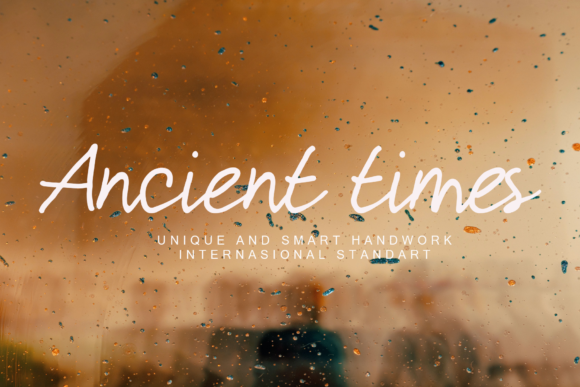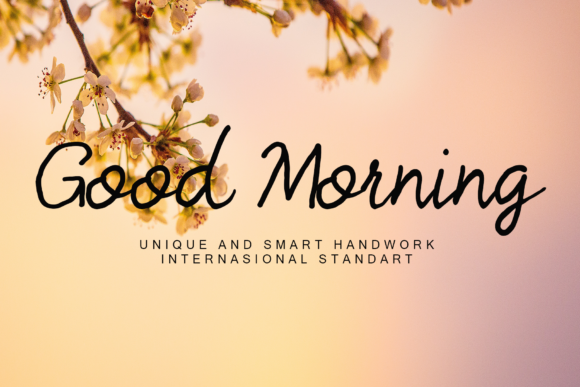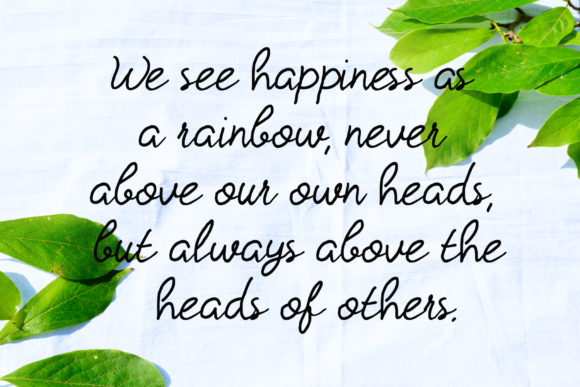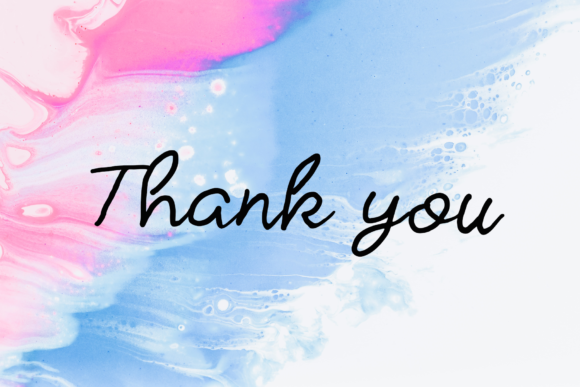
Dinosaur Font: The Elegant Handwritten Font for Stunning Designs
Are you a designer or crafter looking for a unique and versatile font to elevate your creative projects? Look no further than the Dinosaur Font, a delicate and elegant handwritten font that is sure to capture your heart. With its distinct and well-rounded letters, this font is a masterpiece that can add a touch of sophistication and whimsy to any design.
The Unique Characteristics of Dinosaur Font
The Dinosaur Font is a one-of-a-kind font that boasts a range of unique characteristics that set it apart from other fonts. Its delicate and elegant handwritten style makes it perfect for a variety of design projects, from wedding invitations and branding materials to craft patterns and digital art. The font’s well-rounded letters are carefully crafted to create a sense of fluidity and movement, making it a joy to use and work with.
The Versatility of Dinosaur Font
One of the standout features of the Dinosaur Font is its incredible versatility. Whether you’re creating a formal or informal design, this font can adapt to any style or theme. Its elegant and refined appearance makes it perfect for high-end branding and luxury designs, while its playful and whimsical feel makes it ideal for more casual and creative projects. With the Dinosaur Font, you can create a wide range of designs, from sophisticated and elegant to fun and playful.
Design Possibilities with Dinosaur Font
The design possibilities with the Dinosaur Font are endless! Here are just a few ideas to get you started:
- Wedding Invitations: Use the Dinosaur Font to create beautiful and elegant wedding invitations that set the tone for a special day.
- Branding Materials: Add a touch of sophistication and elegance to your branding materials, such as business cards, letterheads, and packaging.
- Craft Patterns: Use the Dinosaur Font to create stunning craft patterns, such as knitting patterns, sewing patterns, and paper crafting templates.
- Digital Art: Create beautiful digital art pieces using the Dinosaur Font, such as quotes, posters, and social media graphics.
Why Choose Dinosaur Font?
So why choose the Dinosaur Font over other fonts? Here are just a few reasons:
- Unique and Distinctive: The Dinosaur Font is a one-of-a-kind font that will set your designs apart from the rest.
- Elegant and Refined: The font’s elegant and refined appearance makes it perfect for high-end designs and luxury brands.
- Versatile: The Dinosaur Font can be used for a wide range of design projects, from formal to informal.
- Easy to Read: The font’s clear and well-rounded letters make it easy to read, even at small sizes.
Tips for Using Dinosaur Font
Here are a few tips for using the Dinosaur Font in your designs:
- Experiment with Colors: Try pairing the Dinosaur Font with different colors and textures to create unique and eye-catching designs.
- Play with Sizes: Experiment with different font sizes to create visual interest and hierarchy in your designs.
- Mix and Match: Try pairing the Dinosaur Font with other fonts and graphics to create stunning and unique designs.
In conclusion, the Dinosaur Font is a delicate and elegant handwritten font that is sure to capture your heart. With its distinct and well-rounded letters, this font is a masterpiece that can add a touch of sophistication and whimsy to any design. Its incredible versatility makes it perfect for a wide range of design projects, from wedding invitations and branding materials to craft patterns and digital art. So why wait? Fall in love with the Dinosaur Font and use it to create spectacular designs that will leave a lasting impression!